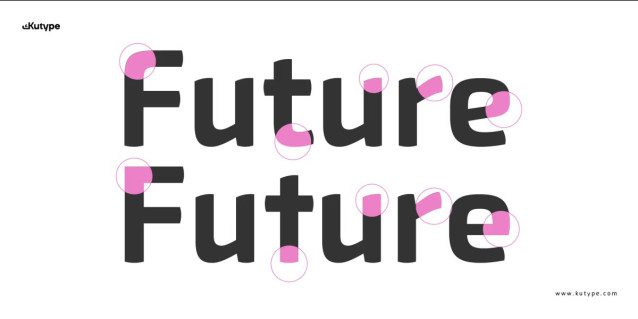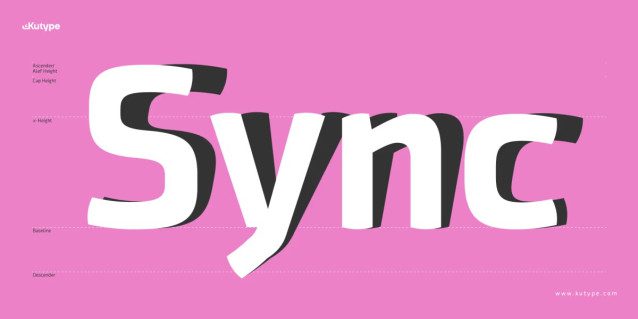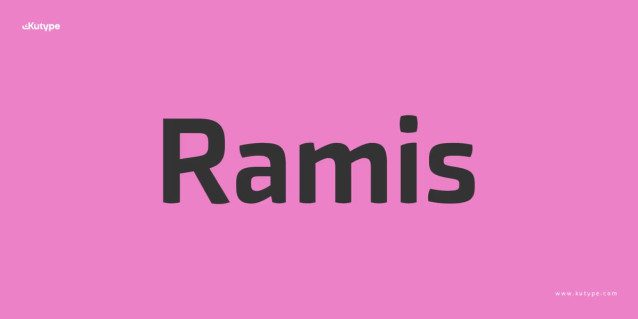
Ramis Font
Ramis Font is a Neo-Humanist Sans. Ramis’ character is defined by consistent strokes without extreme contrast, smooth terminals with subtle cuts, and open apertures that enhance readability, especially on digital screens. Ramis carries an organic, humanist proportion.